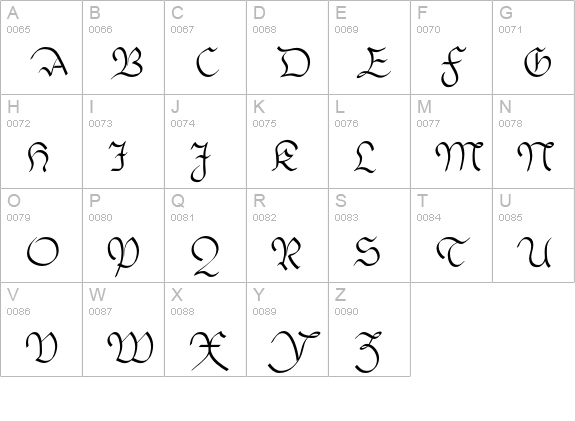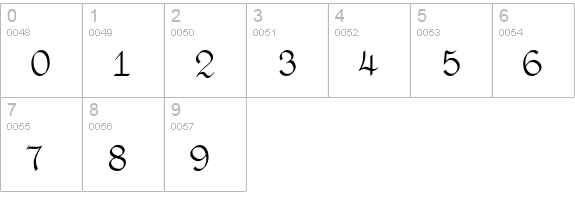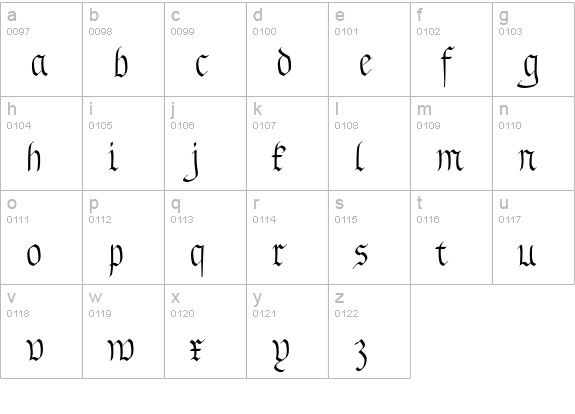
Drachenfels Font Details
Drachenfels font is a stunning and versatile typeface that exudes elegance and sophistication. With its bold yet graceful design, Drachenfels is the perfect choice for projects that require a touch of classic charm and modern flair. This font features intricate details and clean lines that make it stand out in any design setting. The best part is that Drachenfels font is completely free to download at FontsMarket.com. Whether you're working on a branding project, poster design, or any other creative endeavor, this font will add a touch of sophistication and style to your work. Don't miss out on the opportunity to enhance your designs with the timeless beauty of Drachenfels font - download it for free today at FontsMarket.com!